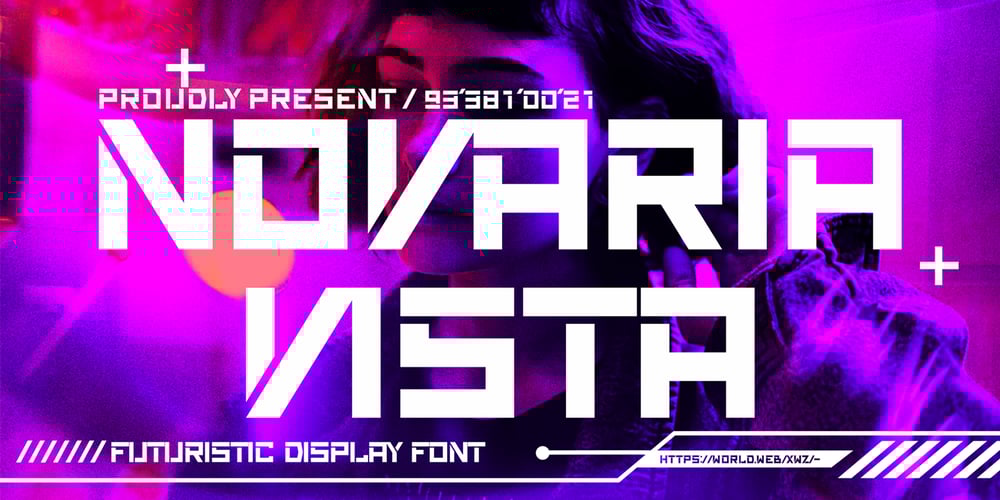
Novaria Vista Font Family was designed by Sipanji and published by Sipanji21. Novaria Vista contains 1 styles and family package options. “Novaria Vista” is a futuristic display font. Fonts with a futuristic theme often embrace technological and forward-looking aesthetics. They are commonly used in various design projects that aim to convey modernity, innovation, and a vision of the future.With “Novaria Vista,” you can create designs that exude a sense of advancement and a futuristic touch. This font is suitable for projects related to technology, science fiction, space exploration, and other themes where a futuristic style is desired.